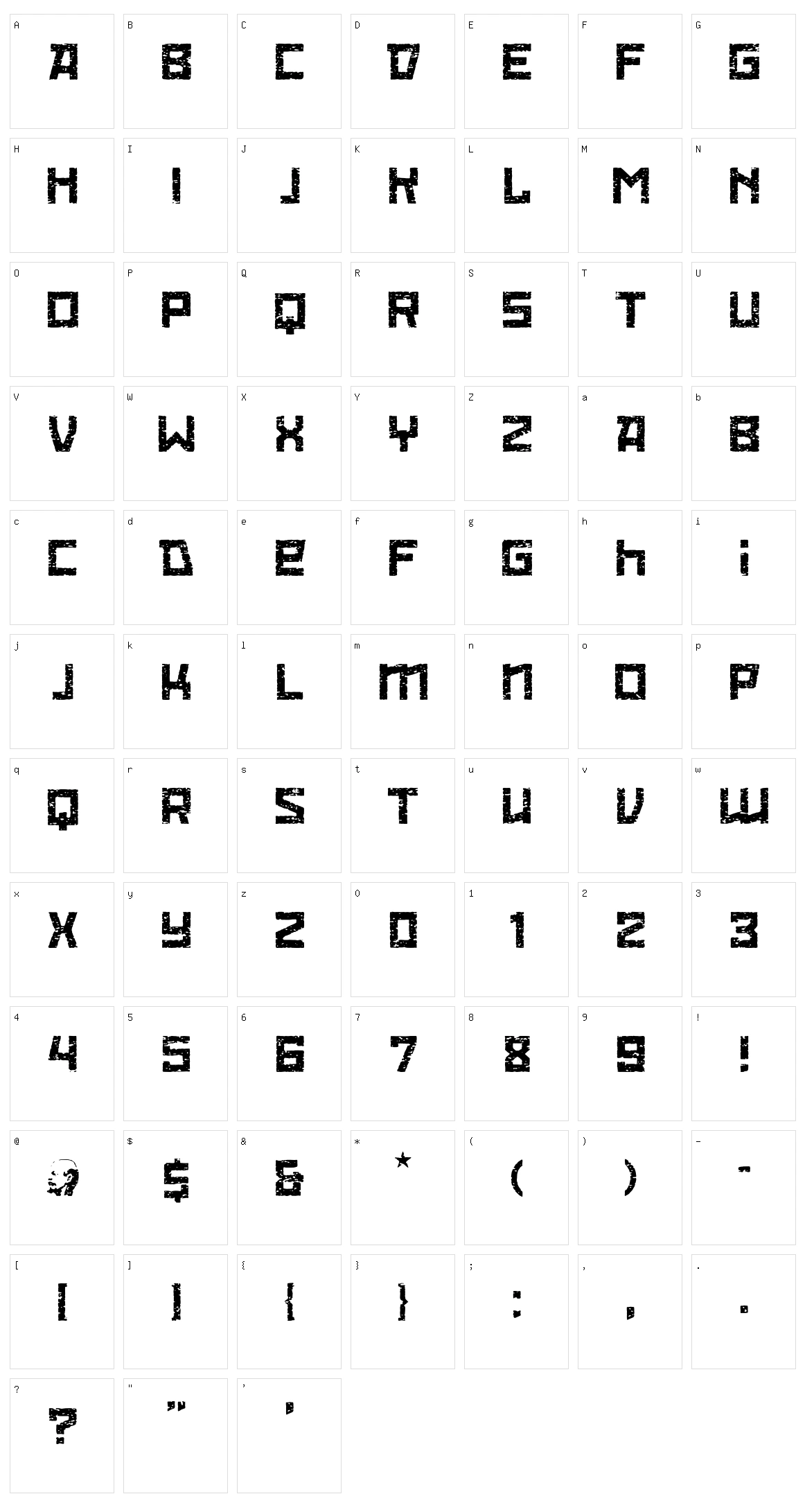
The free font Red October Eroded is carefully designed by Neogrey Creative, showcasing a thoughtful balance of creativity and usability and falls under the Eroded font style. When you download the ZIP file, it contains only 777.18 KB of font files, making it lightweight and quick to download. Please review the license details below to understand permitted usage and distribution rights. If license information is not available, we recommend using this font for personal projects only or contacting the author directly for commercial usage permissions.